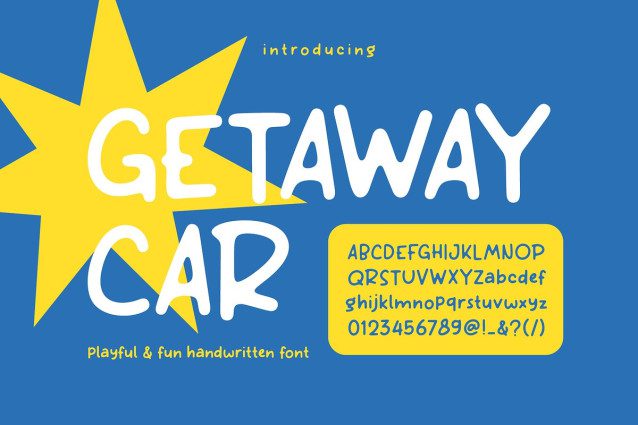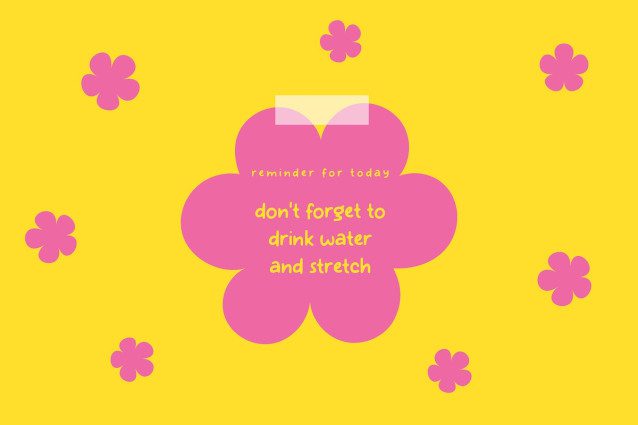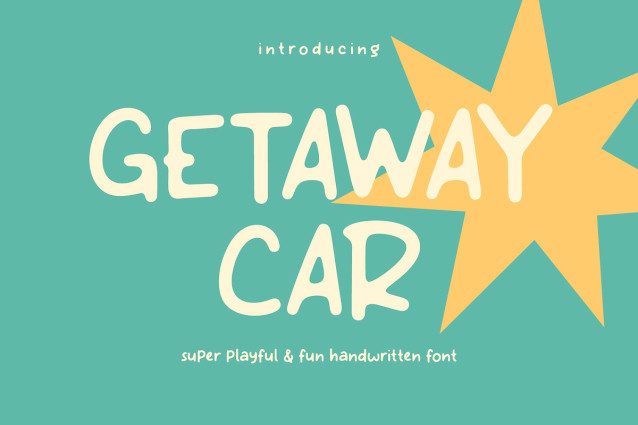
PGR Getaway Car Font
PGR Getaway Car Font Inspired by kids’ wild imagination and scribbly genius, this font races off the page with playful energy. It’s not meant to be neat and that’s exactly the point. It’s bold, bouncy, and full of personality. As a result, it’s perfect for designs that don’t take themselves too seriously.
What’s inside? You’ll get uppercase and lowercase letters, numbers, and a selection of standard symbols. In addition, PGR Getaway Car comes in OTF, TTF, and WOFF formats, making it easy to use across all your favorite platforms.
Whether you’re creating for kids, branding a fun product, or just want something unique, this font brings an instant smile. So, buckle up, let your creativity run wild, and let PGR Getaway Car drive your ideas somewhere amazing!